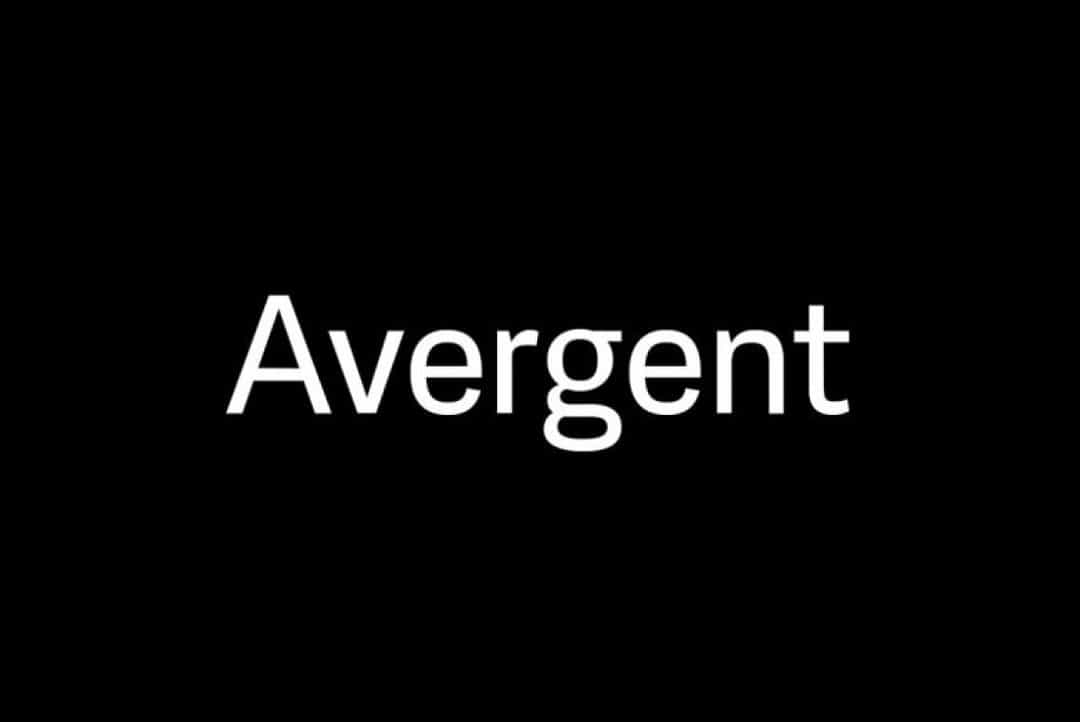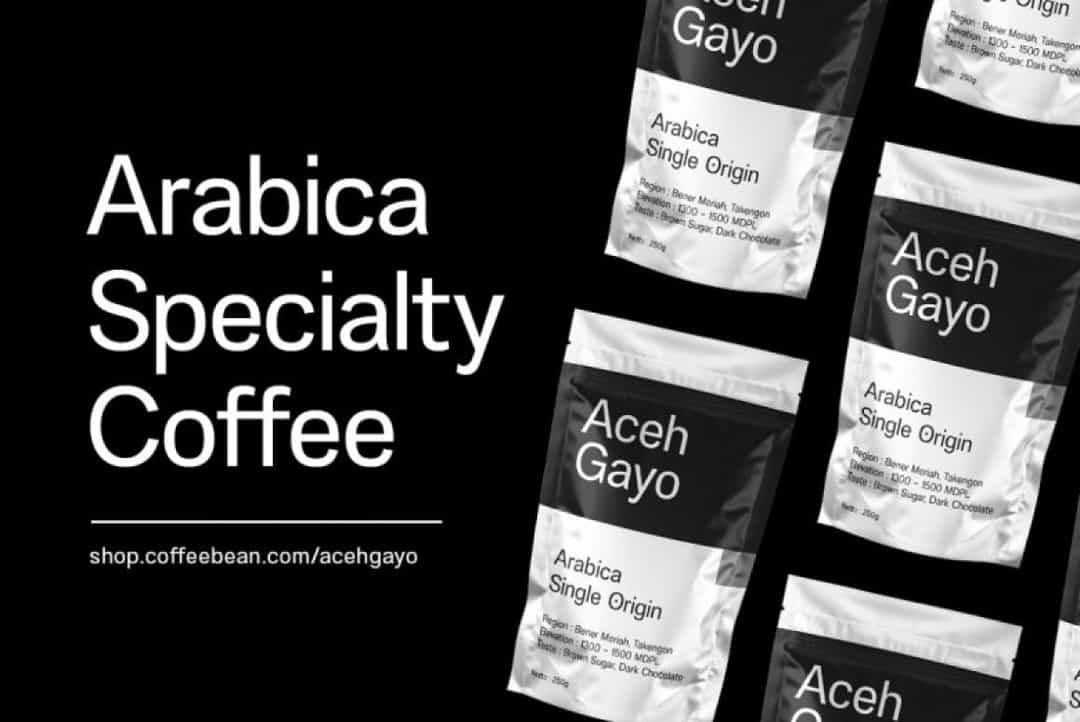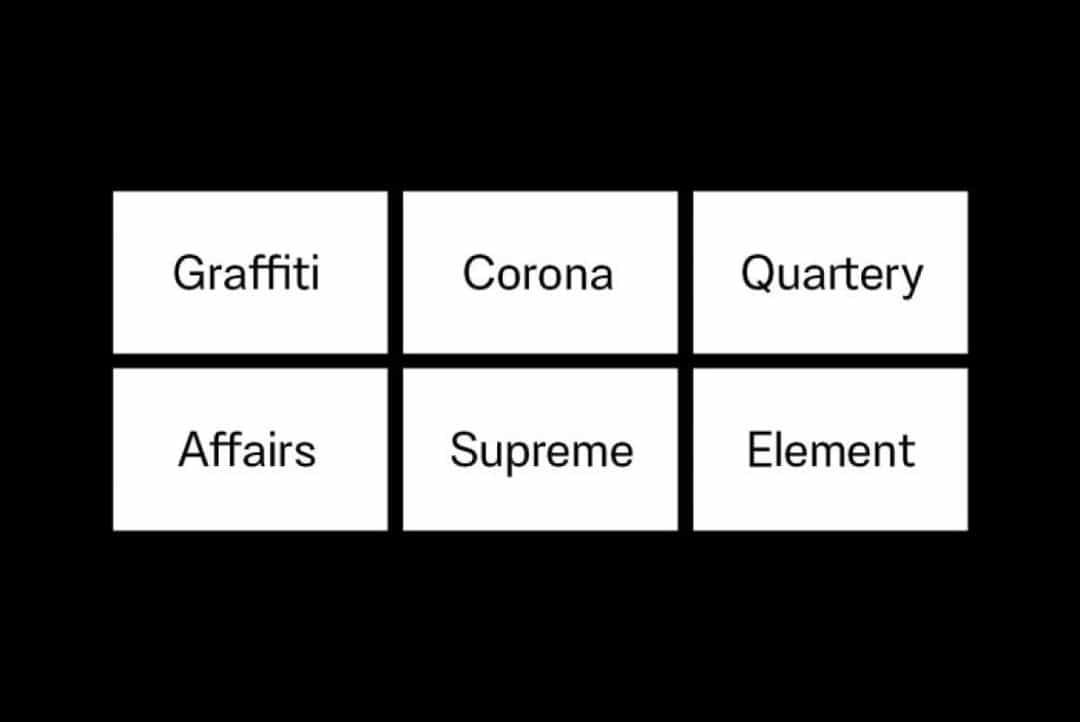
Avergent Font is an effortless display sans serif font designed for modern advertising, corporate branding and more. Its maximum legibility, clear style, geometric structure and geometric structure makes it a suitable font choice for brochures greeting cards posters quotes stationary designs blog headers as well as lots of other purposes.